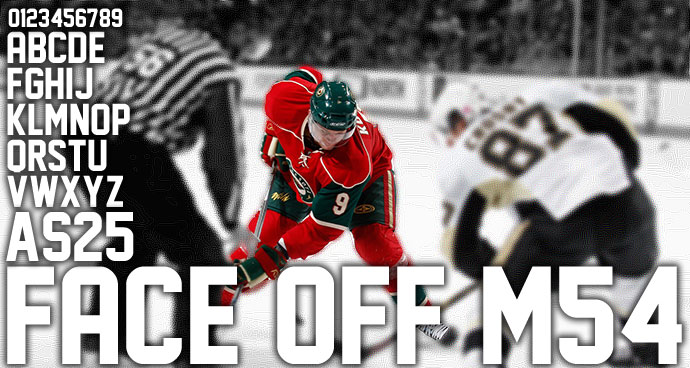
Preview and download Face Off M54 Font. Created by justme54s in Fancy Old School styles with Free for personal use license.
This is just a rounded version of my Jersey M54 font without the sharp sliced corners. It’s ideal for apparel design and naming on sports jerseys. The upper and lower case 'a' and 's' glyphs are different. The left and right curly brackets hold alternate glyphs for numbers '2' and '5'. If you find this font useful then please consider a donation to justme54s[at]yahoo.co.uk, any amount will be greatly appreciated. A donation isn't necessary to use this font for personal or non-commercial use. I'll be interested to know how people use it so a picture or artwork sent to justme54s[at]yahoo.co.uk would be nice. If you wish to use this font commercially a donation or license is required, please email for further information. Alternatively, for one time commercial use just send details of usage along with your donation so that a return email can be sent as proof of rights to commercial usage. Usage Agreement You may not host this font anywhere online as it is hosted exclusively at FontSpace.com and Dafont.com. Any links for downloads should be directed to FontSpace or Dafont. You may share the font electronically but the Zip file should remain intact with the font alongside all other files as packaged. You may not sell this font, but are allowed to distribute it freely i.e. in magazines. |